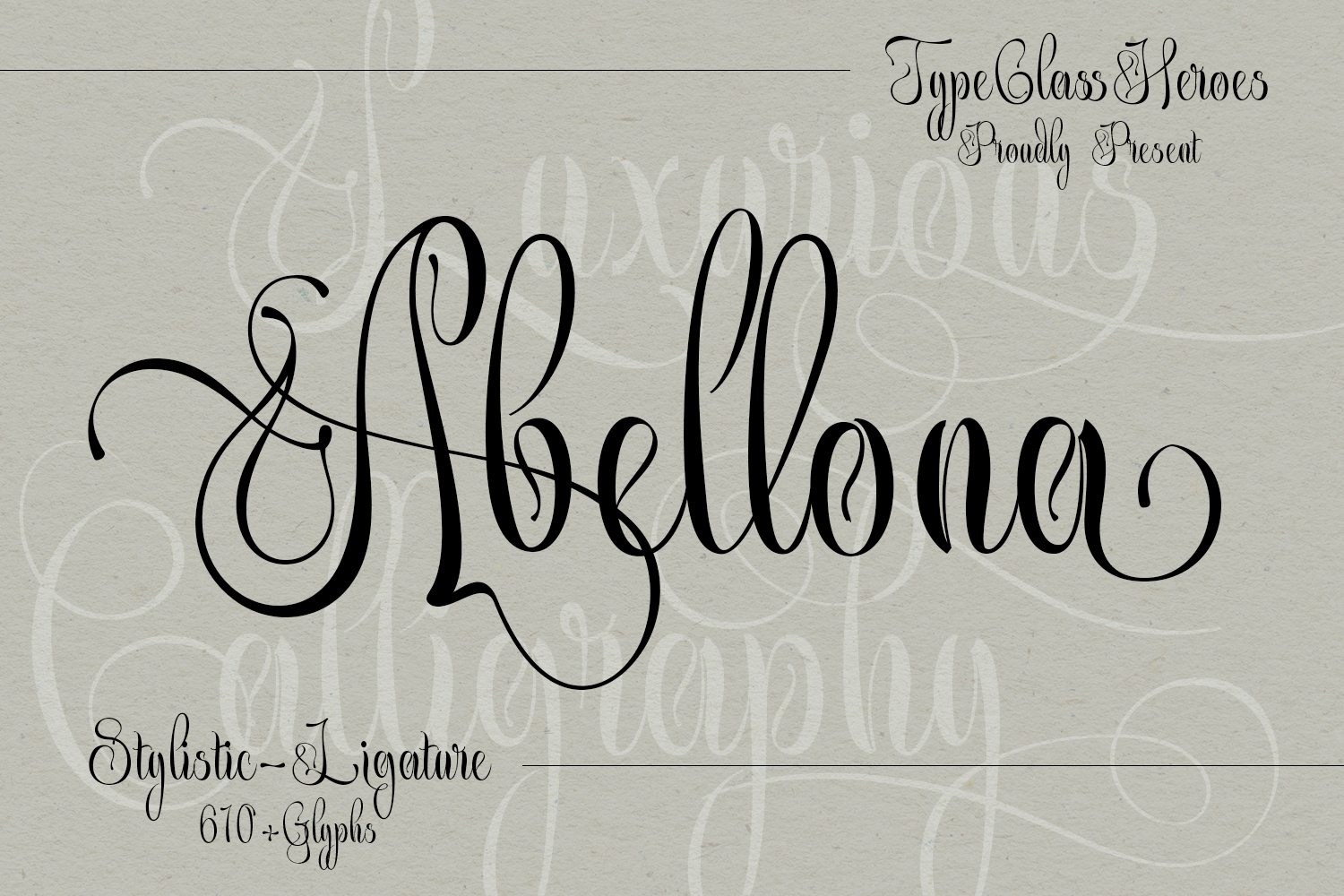
Abellona Script
Abellona font combines subtle curves to create a timeless, elegant and romantic feel. With its flowing, well-proportioned letterforms, it exudes a sense of luxury. Designed with an artistic touch and natural elegance, this script font is perfect for projects that emphasize beauty and delicacy. This font is perfectly made to be a logo, and the other various formal forms such as invitations, labels, logos, magazines, books cover, greeting cards, packaging, make up, novels, labels or whether you’re creating digital content or printed materials.